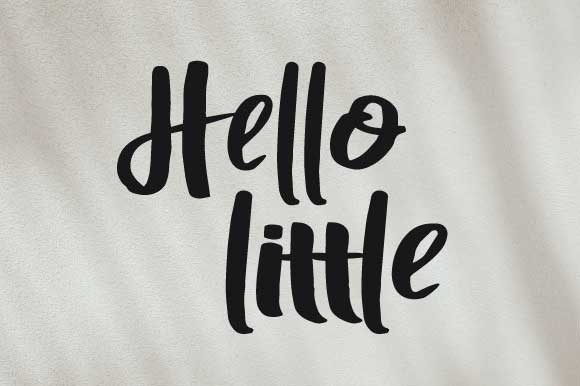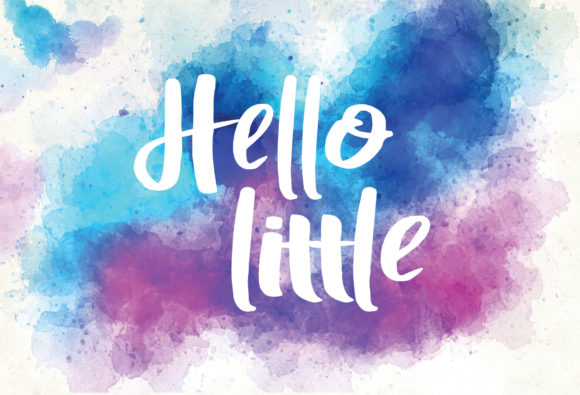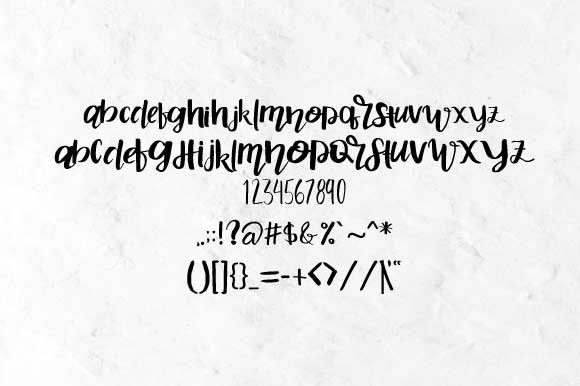
Little Font
About Little Font
Little is a playful handwritten typeface featuring charming characters. It is perfectly suited for a wide variety of crafting projects!